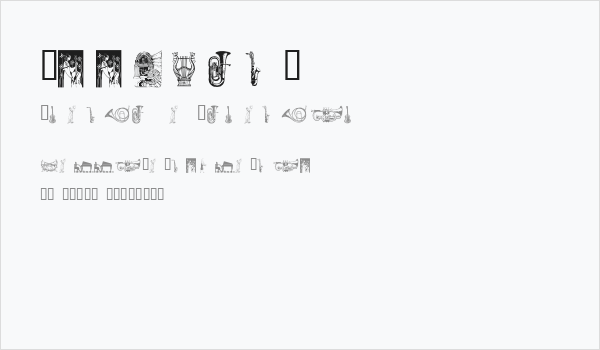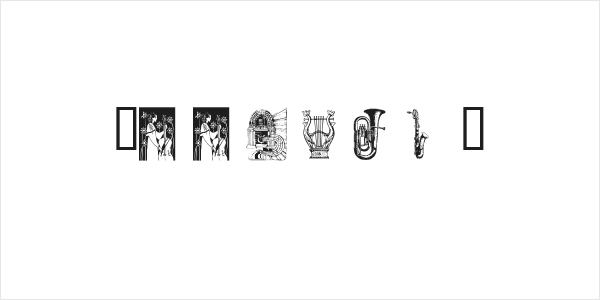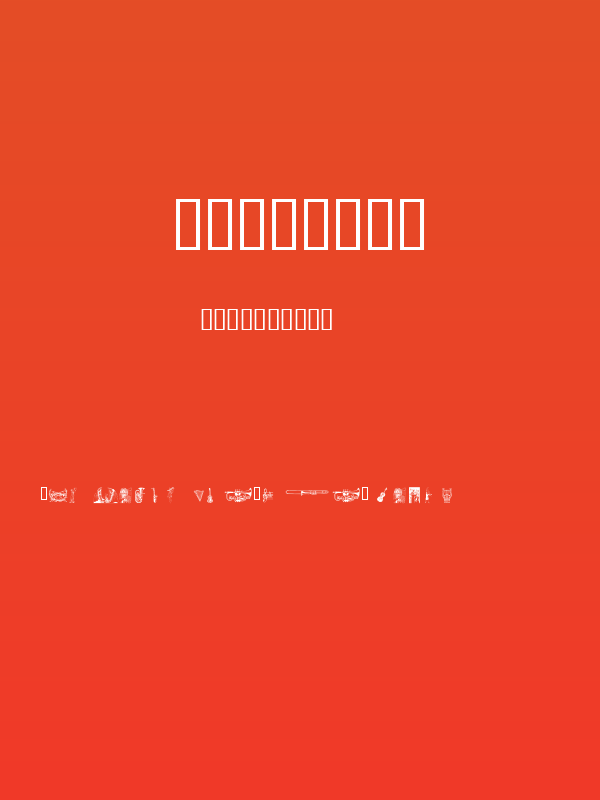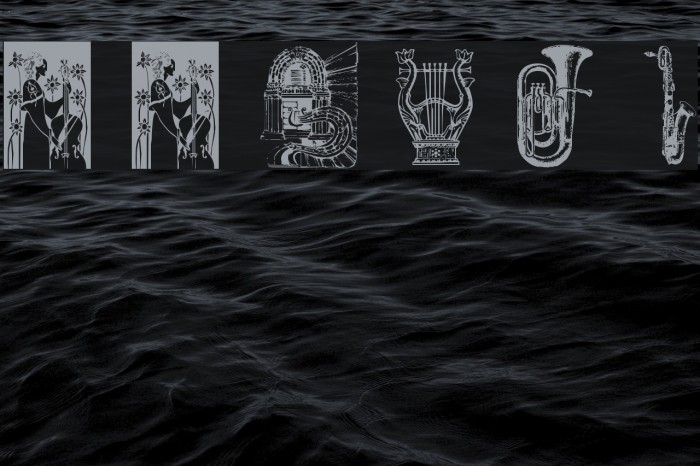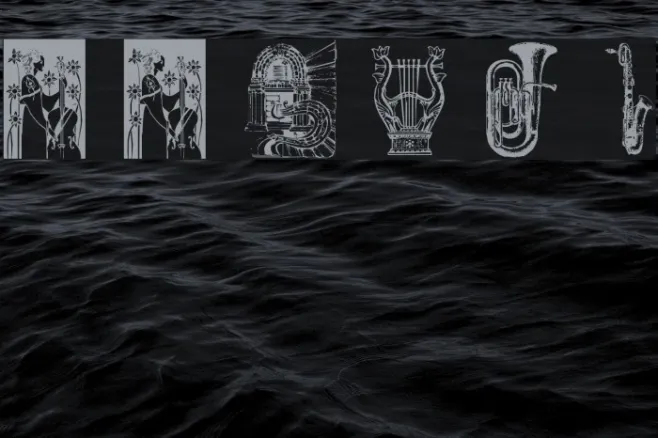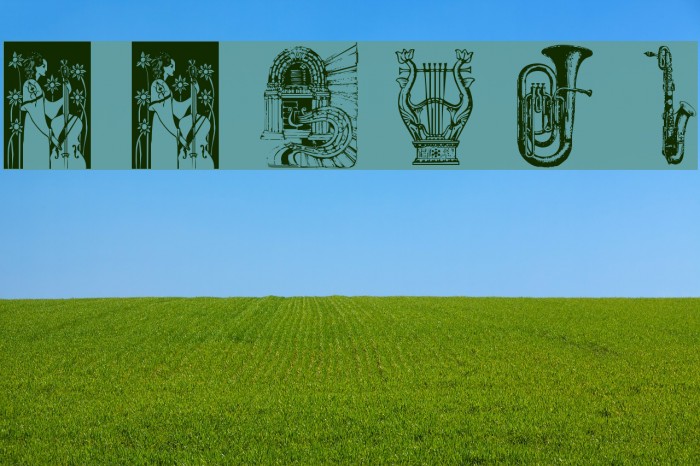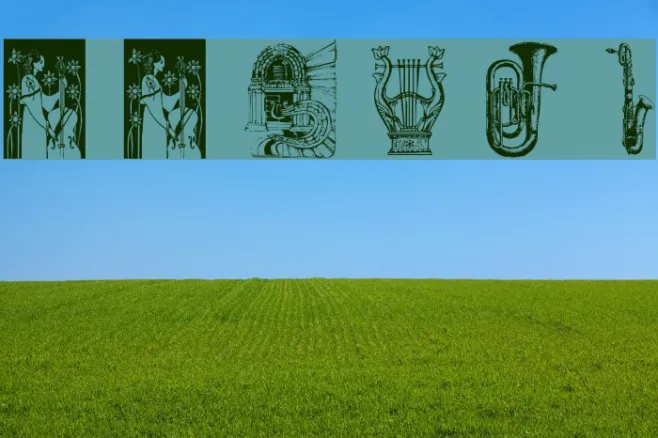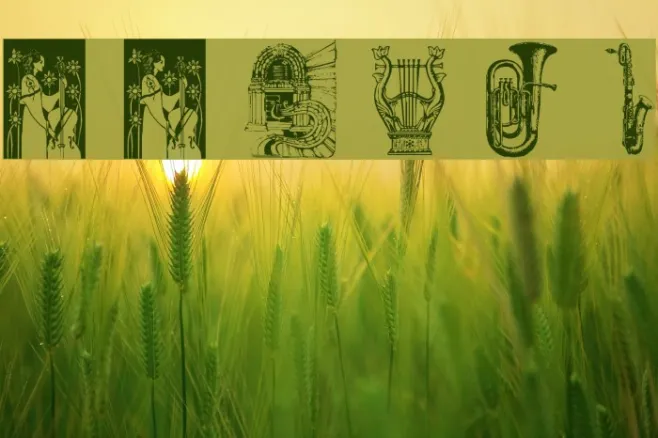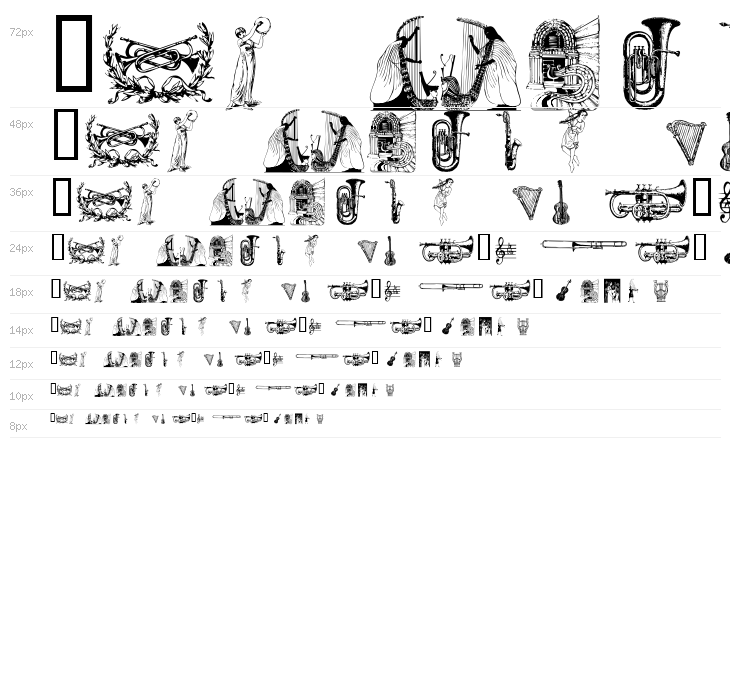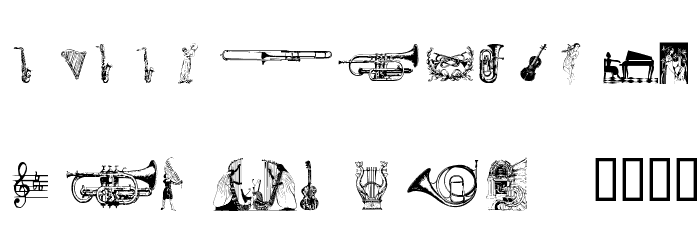
wmmusic2 Font
wmmusic2 Description
This font is a decorative and artistic representation of musical instruments and related imagery. Each character is uniquely designed to resemble a different musical instrument or scene, creating a visually engaging and thematic typeface. The intricate details in each character make it ideal for creative projects that require a musical or artistic flair. The font does not follow traditional letterforms, instead opting for a more illustrative approach, which adds a layer of complexity and charm.
| Use Case | Logos, Posters, Artistic projects |
| Proposed Projects | Ideal for music-themed posters, album covers, event invitations, and educational materials related to music. |